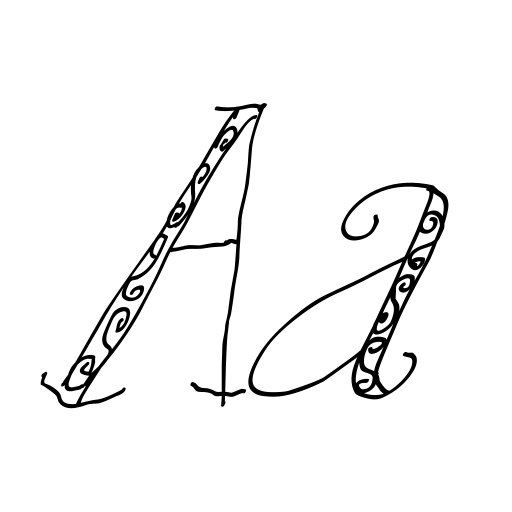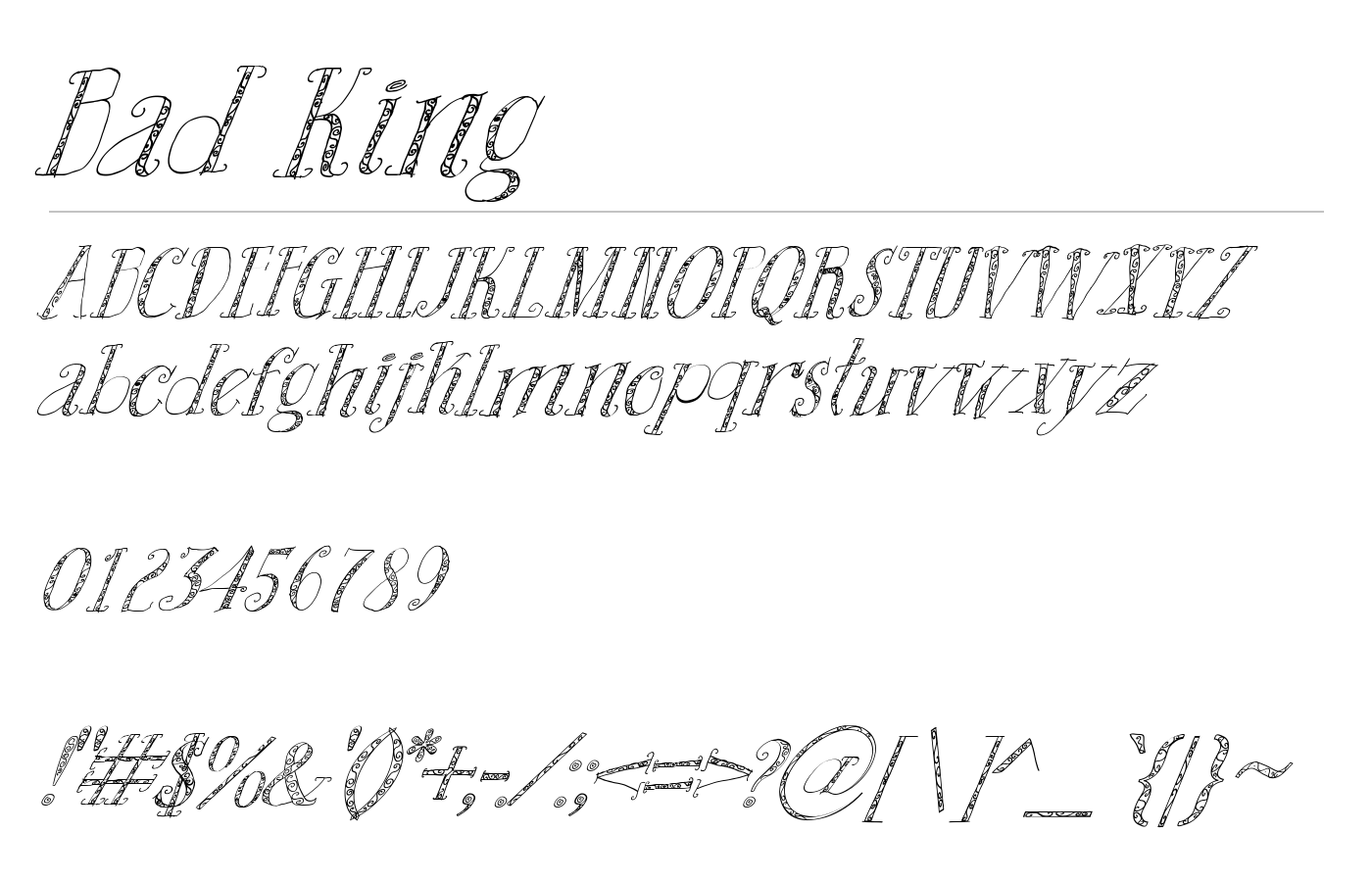
Bad King is an elegant serif font with a playful, intricate design characterized by thin, delicate strokes and decorative swirling patterns inside each letter. Its tall, narrow letterforms and subtle contrast give it a refined yet whimsical personality, making it ideal for stylish logos, invitations, or creative headlines where a unique, artistic touch is desired. The font’s distinctive look works well in contexts that want to combine sophistication with a touch of fun and individuality.
Bad King Font
About Bad King Font